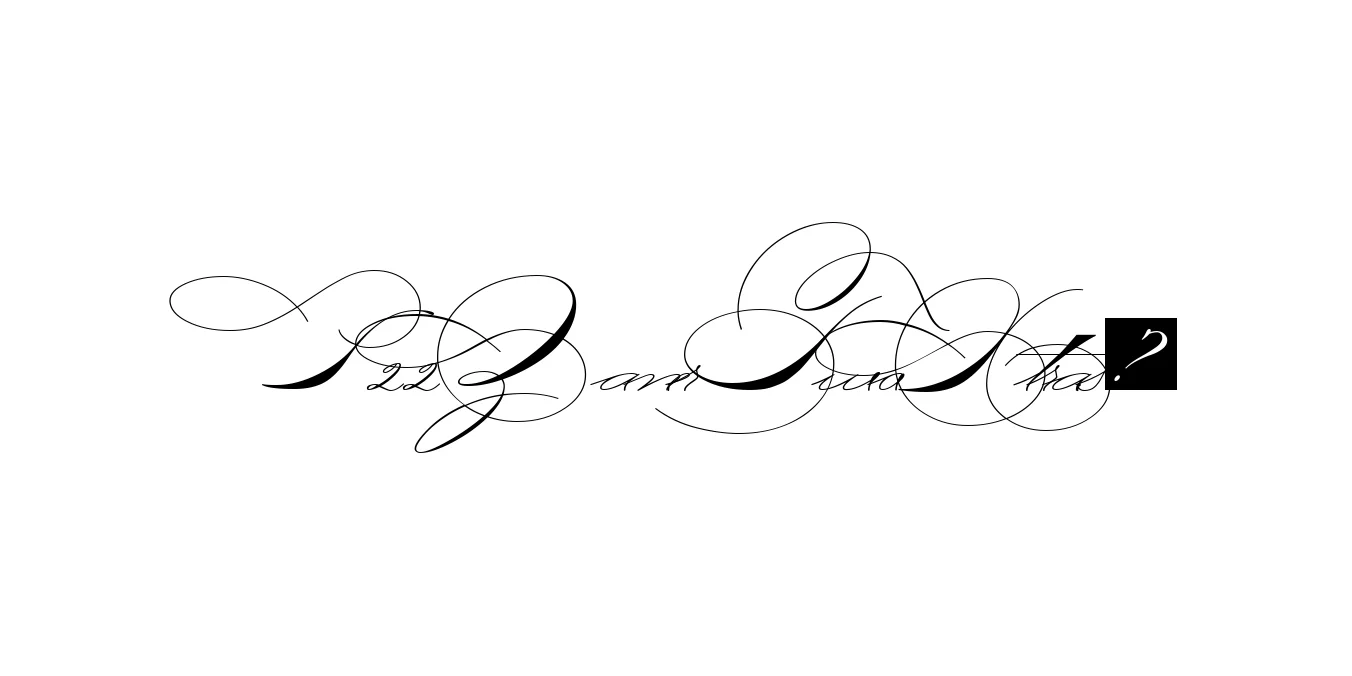
P22ZanerTwoXtras ☞
Designed by Paul Antonio & Richard Kegler
P22 Zaner TwoXtras is a part of the extensive P22 Zaner font set, which is based on the masterful penmanship of Charles Paxton Zaner. Zaner was a renowned American educator and calligrapher who founded the Zanerian College of Penmanship in Columbus, Ohio. This specific set, TwoXtras, focuses on the ornamental flourishes, decorative frames, and intricate illustrative elements that were common in the Spencerian and copperplate script traditions of the late 19th and early 20th centuries.
Developed by P22 Type Foundry in collaboration with calligrapher Paul Antonio, the font serves as a digital preservation of Victorian-era sophistication. The intricate details of the swashes and borders are designed to complement the primary Zaner script fonts, allowing designers to create cohesive, high-end documents that mimic the quality of hand-inked calligraphy. It is widely recognized for its historical accuracy and its ability to add a sense of timeless elegance to modern digital typography.
P22ZanerTwoXtras ☞ Best Uses
Ideal for creating elegant borders and decorative accents on formal invitations.
Perfect for adding professional flourishes to diplomas and honorary awards.
Provides unique, hand-crafted calligraphic elements for high-end luxury branding.
Great for drop caps and section dividers in historically-themed publications.